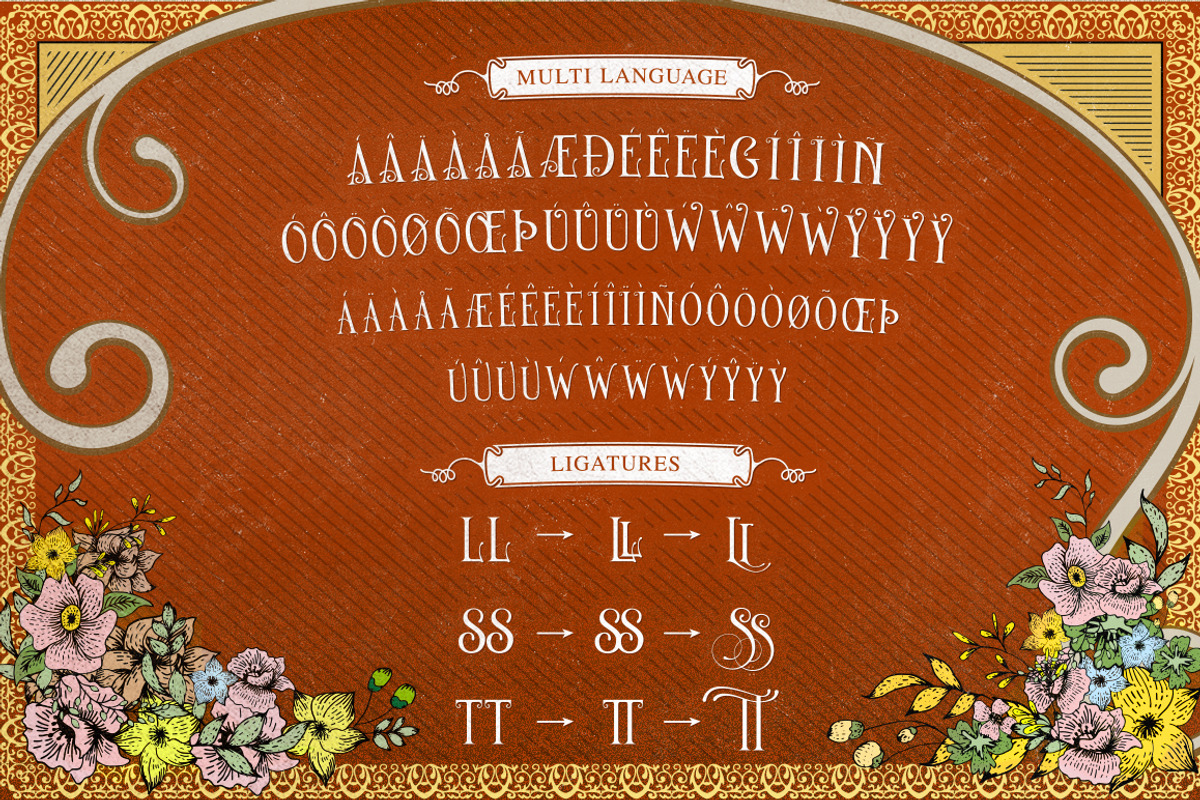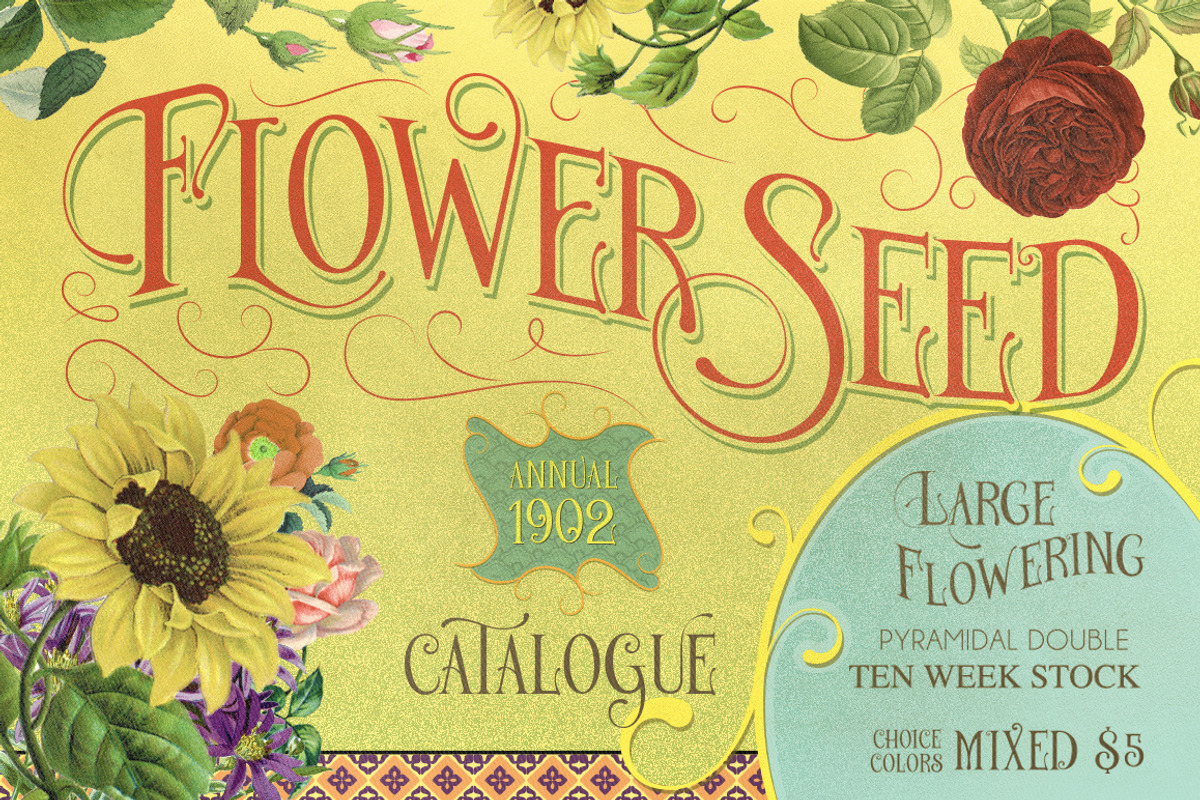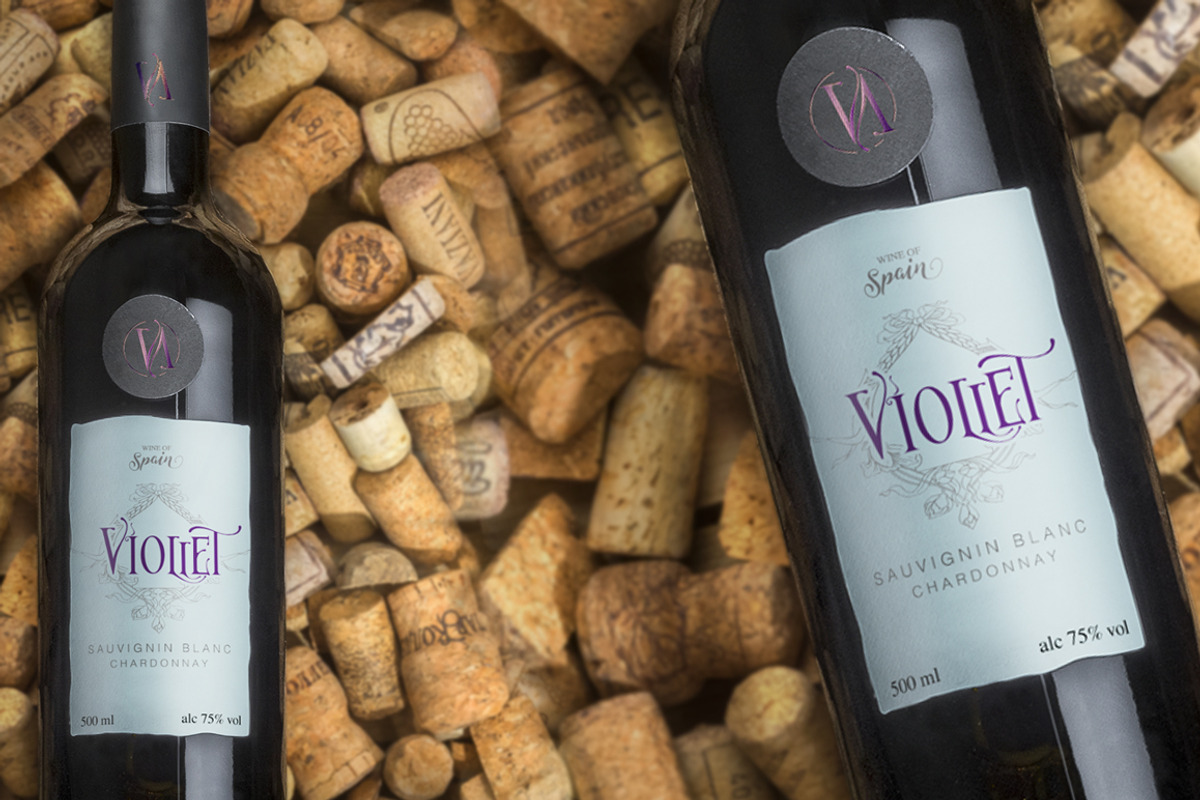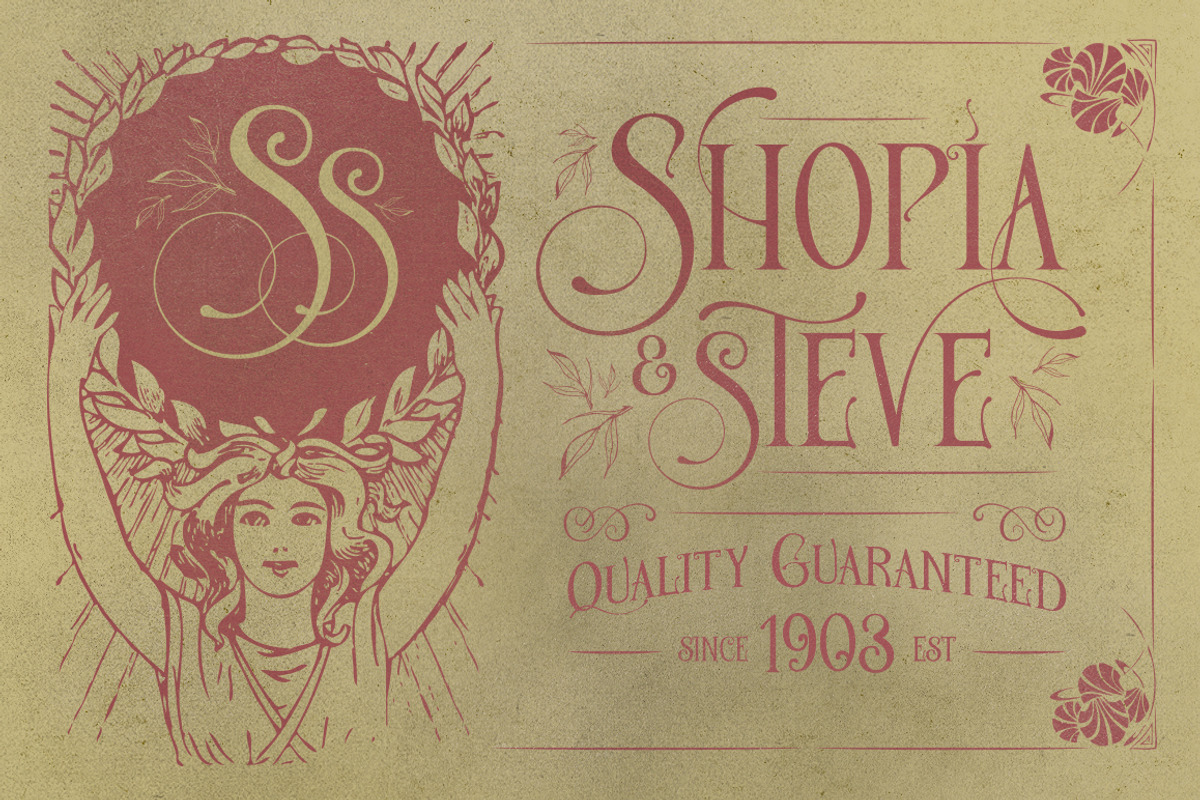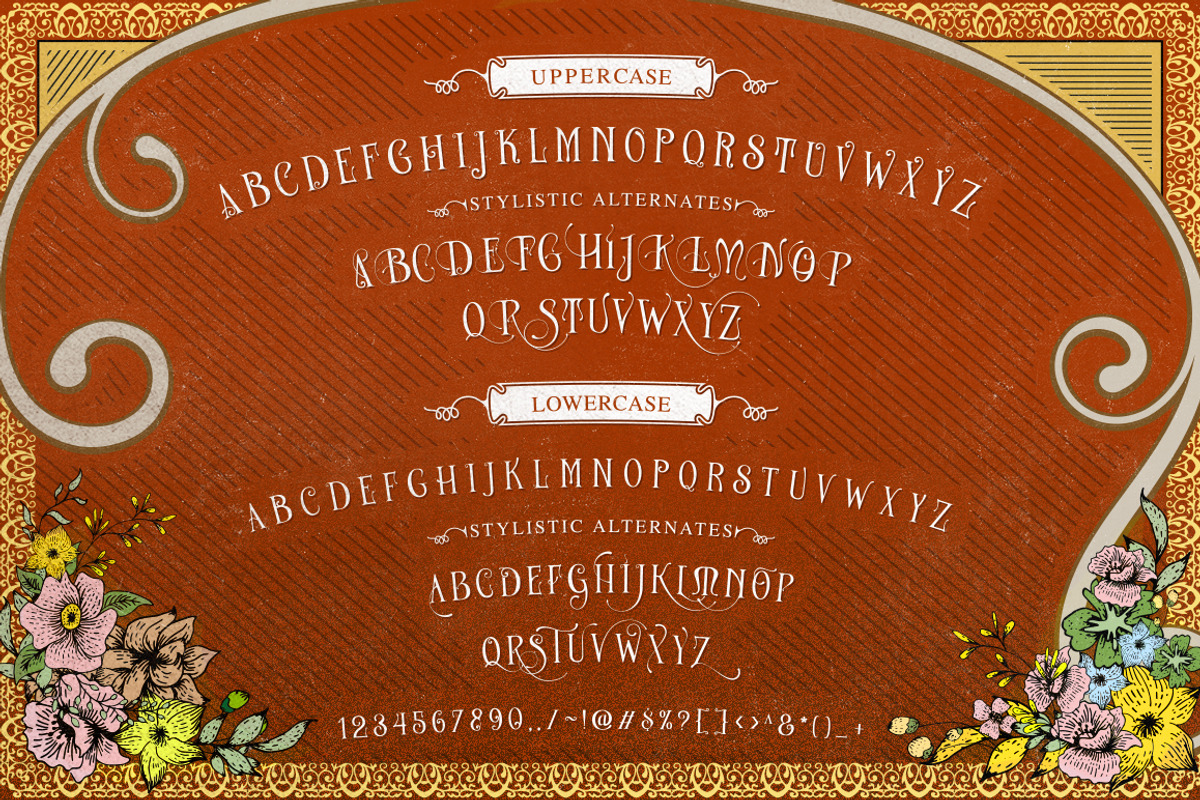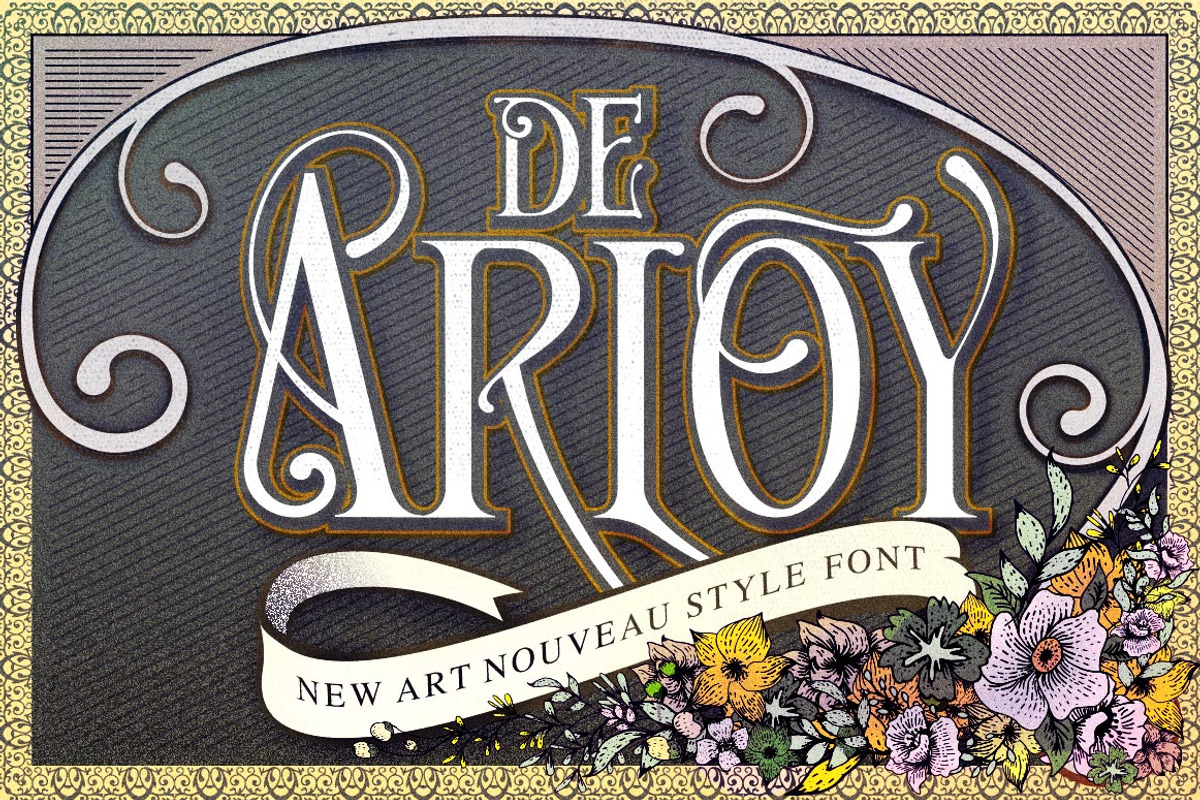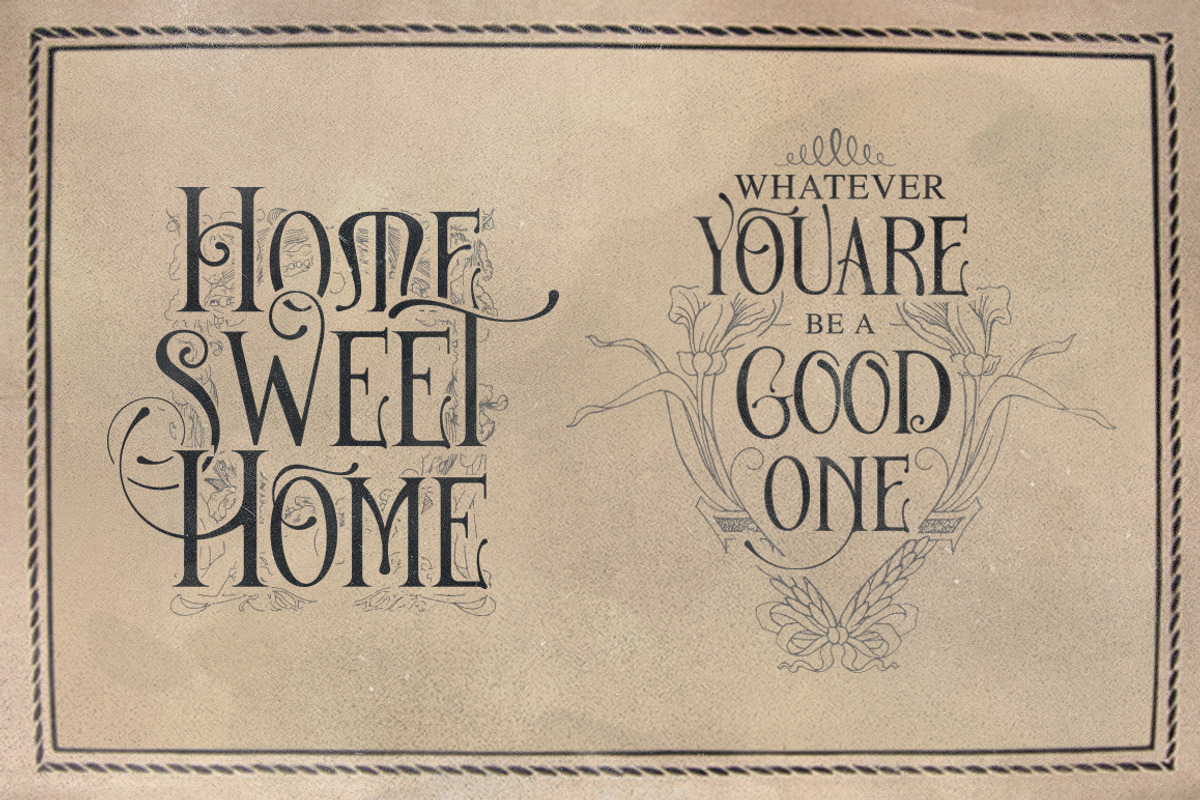
Handmade Font Collection Bundle
5 handmade Fonts Bundle
This is good for projects like a t-shirt, posters,etc and a touch of vector, that allows you to mix and match pairs of typeface to fit your design
Handmade Font Collection Bundle by StoricType fits naturally into Branding, posters, packaging, typography.